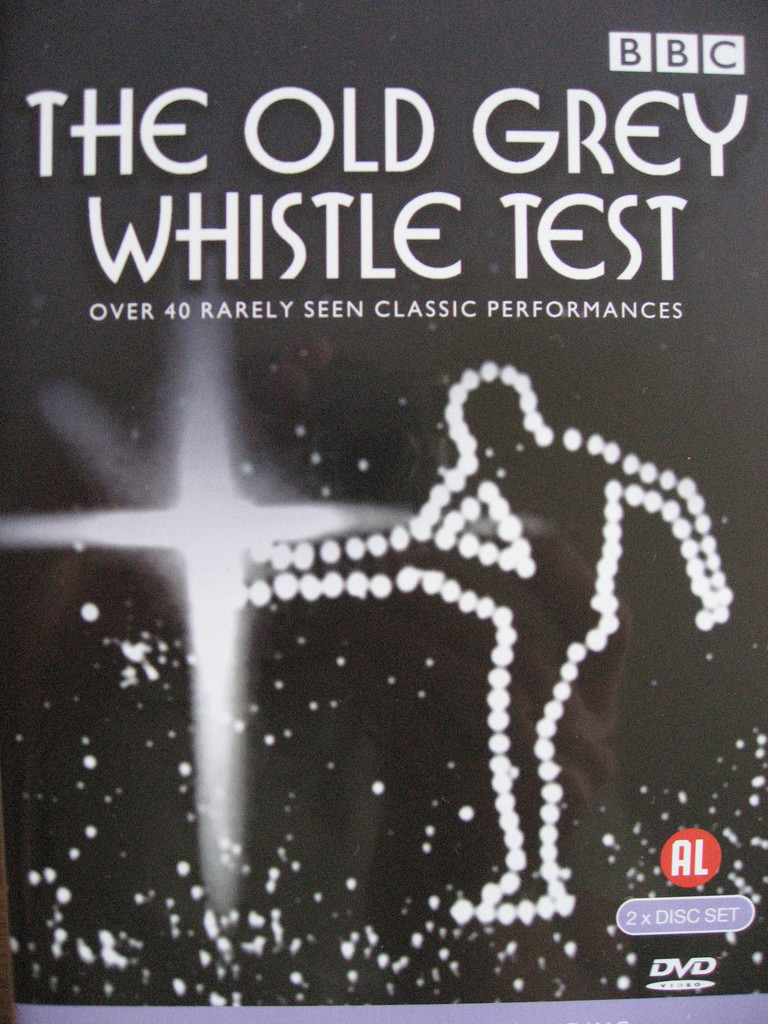
Old Grey Whistle Test Font
Fonts in UseThe Old Grey Whistle Test was a British television music show that aired from 1971 to 1988. It featured live performances from a range of music genres and is known for showcasing many influential and iconic artists.
The TV show's logo font resembles ITC Busorama Bold, a typeface from the inaugural package released by ITC in 1970. You can find more details about the font here.